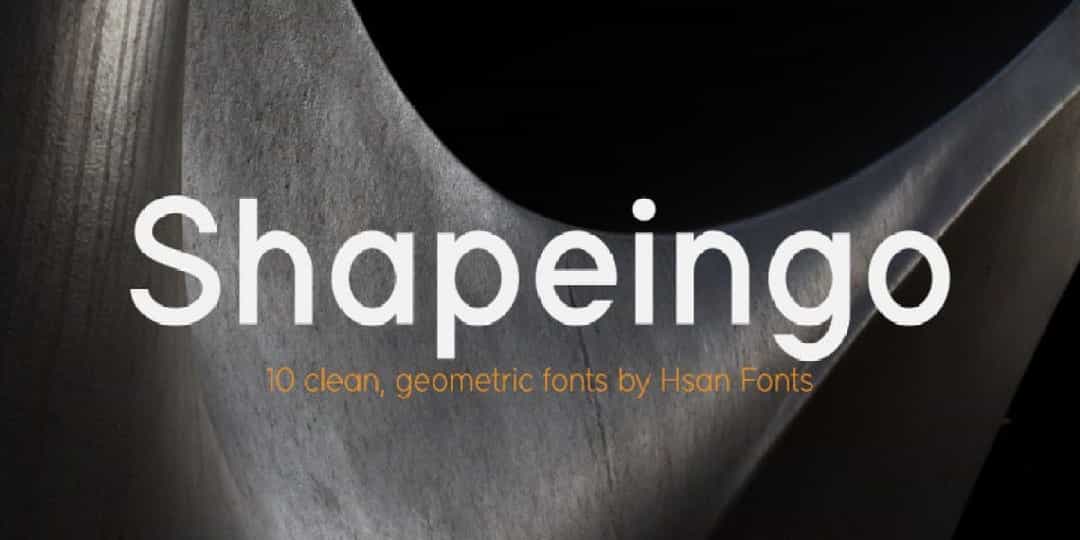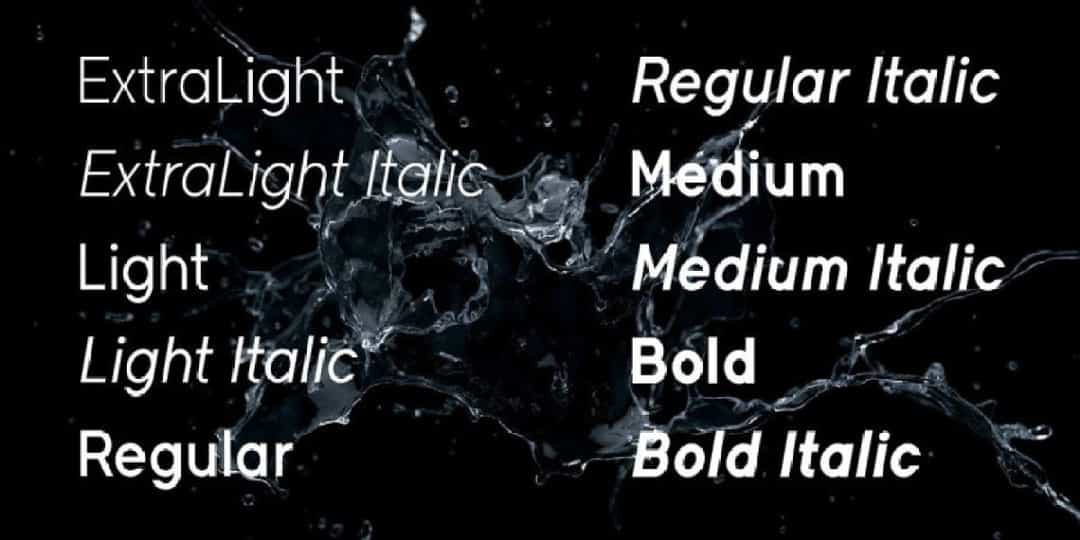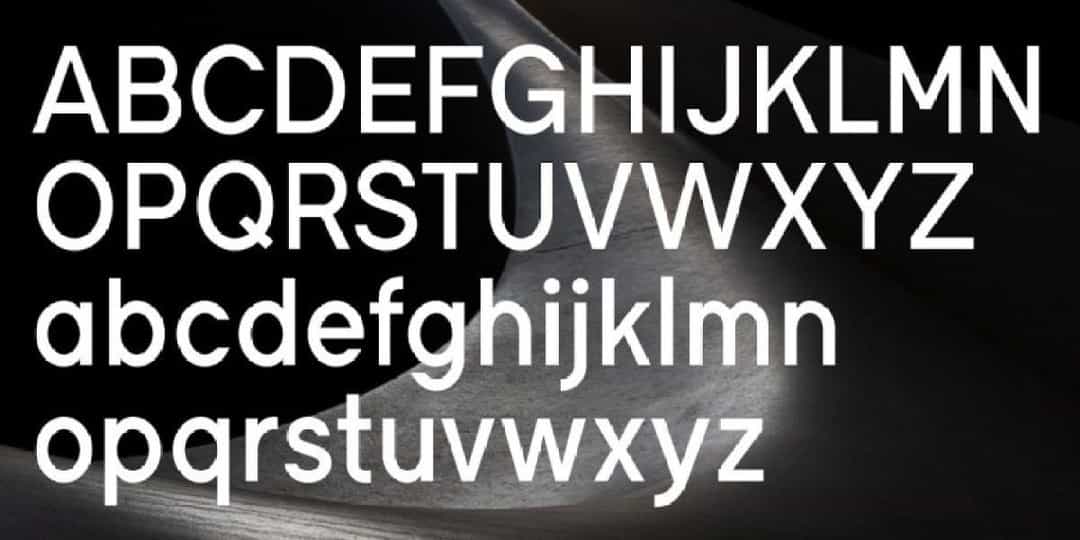
Shapeingo is an exciting new sans serif font family that blends classic and contemporary sans serif fonts into one cohesive package, developed and distributed by Hsan Fonts. Shapeingo makes an excellent choice for logos, branding materials, captions and headlines alike!